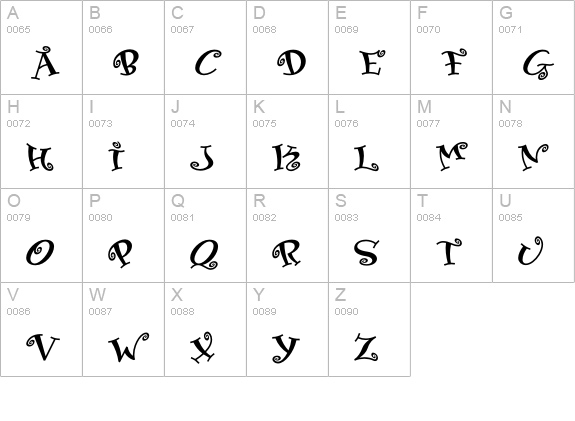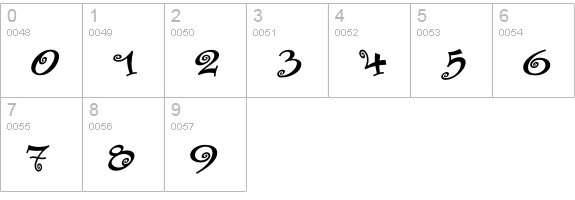
PaisleyICG-02 Font Details
PaisleyICG-02 is a stunningly beautiful font that effortlessly combines elegance with a touch of playfulness. With its intricate and flowing design, this font is perfect for adding a touch of sophistication to any project. Whether you're designing a wedding invitation, creating a logo for a high-end brand, or simply want to elevate the look of your website, PaisleyICG-02 is sure to impress. What sets PaisleyICG-02 apart is not only its exquisite aesthetics but also its versatility. This font can be used for a wide range of purposes, from headlines and titles to body text and captions. Its legibility and readability make it an excellent choice for both print and digital media. One of the most appealing aspects of PaisleyICG-02 is that it is freely available to download at FontsMarket.com. This means that you can use this incredible font without worrying about any licensing restrictions or fees. Whether you're a professional designer or a hobbyist, this font gives you the freedom to bring your creative visions to life without any limitations. Furthermore, PaisleyICG-02 is designed with precision and attention to detail, ensuring that each character is crafted with utmost care. The seamless curves and graceful lines create a harmonious balance, making this font a true visual delight. It is the perfect blend of modern aesthetics and timeless elegance, making it suitable for any design project. So why wait? Download PaisleyICG-02 today from FontsMarket.com and unlock the endless possibilities that this font has to offer. Whether you're working on a personal project or a client's commission, this font will certainly elevate your designs to new heights. Embrace the beauty and versatility of PaisleyICG-02 and let your creativity soar.